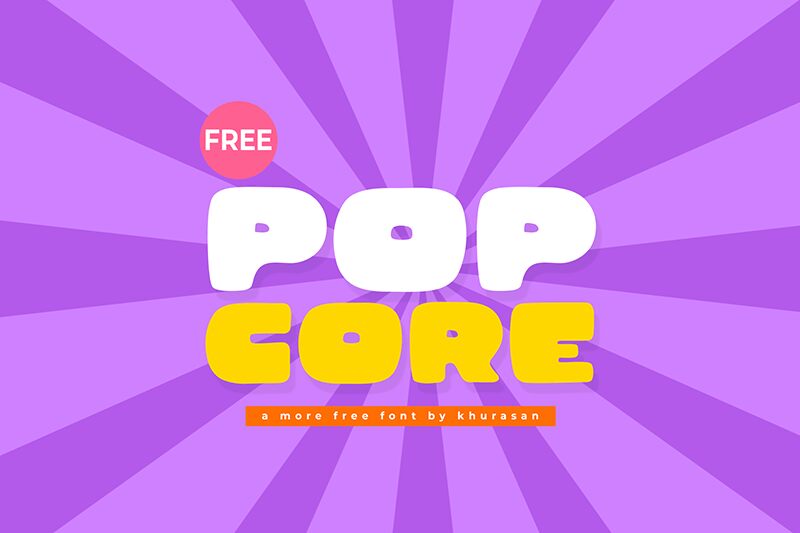
Pop Core
Pop Core font by Khurasan features a fun cartoon style with a bold, expanded appearance. It's main body is built off of rectangular shapes with rounded corners and clean edges but in some special characters, serifs and other decorative element have been added to make the font unique. Some letters look retro which explains why it would probably be very suitable for use in such projects.
Due to it's legibility, wideness and eye-catching nature Pop Core can work for book covers (including e-books), magazines of all kind specially related to cartoons or comic books, posters & flyers of media type projects such as movies or series on channels like Netflix, Hulu & Co., YouTube Thumbnails/Titles amongst other things.